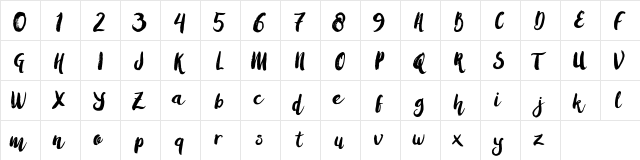
Amulhed Demo Regular
| Foundry | Barmawy Muchtar |
| Designer | Barmawy Muchtar |
Design Context for Amulhed Demo Typeface
Amulhed Demo is a composed and adaptable typeface that performs quietly and consistently across a wide range of design contexts.